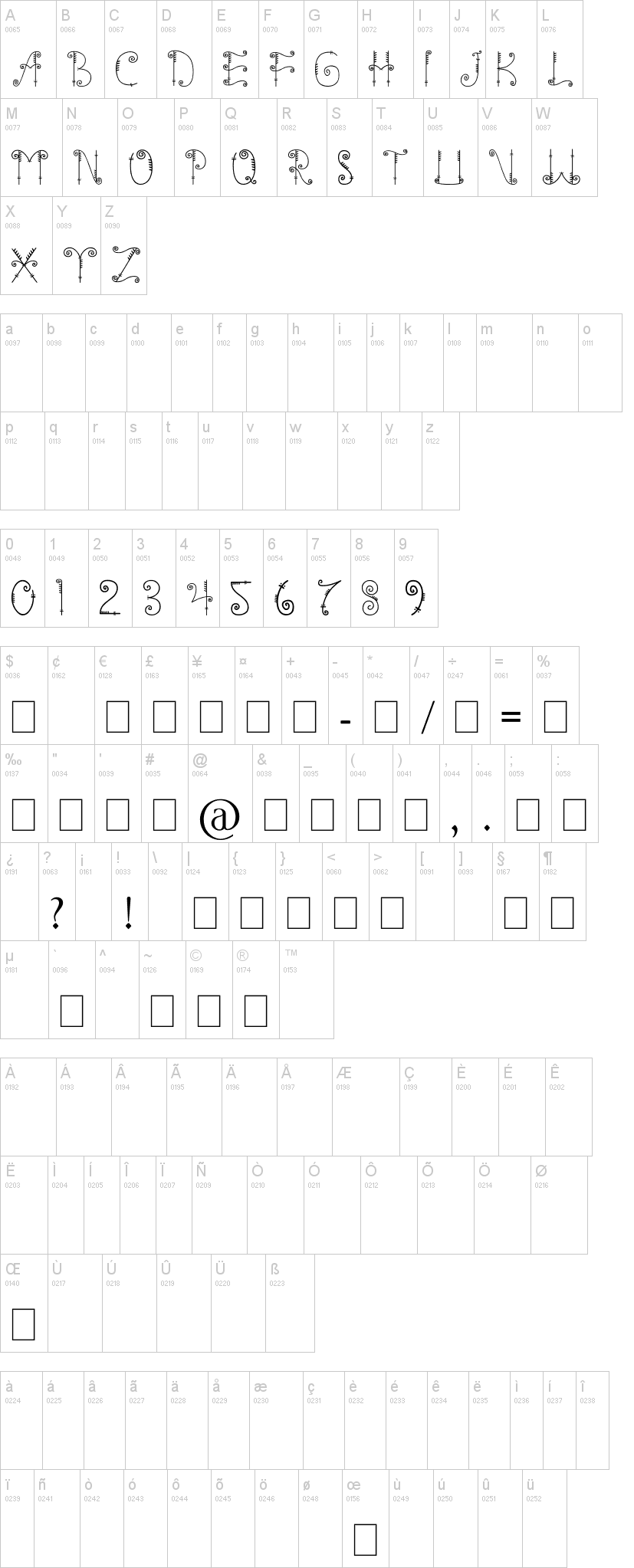
Note of the authorFor the Mentawai tribe, tattooing is a form of artistic expression and also a symbol of social status in society. Additionally, tattoos can also be regarded as a timeless outfit that will be taken off. For typical outfit called the Mentawai tattoo in the Mentawai islands, West Sumatra is usually meet the whole body, from head to foot. Even supposedly Mentawai people tattooing their bodies so that their children after death, they are able to identify their ancestors.
The finished motif drawn then pricked with a needle-stemmed wood. Needles usually use animal bones or wood karai tapered. An injection wooden handle it then beaten slowly with a wooden bat in order to dye into the skin layers. Tattoo dye used is made from a mixture of natural colors, namely
made from sugar cane and coconut shell charcoal. Tattooing starts from palms, hands, feet and body. Tattooed body parts will usually swollen and bleed for a few days.
in addition to a pattern of lines, there are other tattoo motifs are made to follow some specific rules, usually differentiated by the origin of the village or clan. This is due to the function of tattoos as identity and the identity of the Mentawai tribe. Motif also describe self and one's social status or profession. Tattoos are a traditional elders (sikerei) will vary with tattoos who is a hunter.